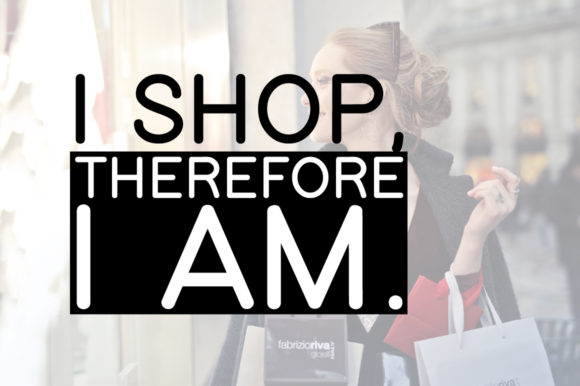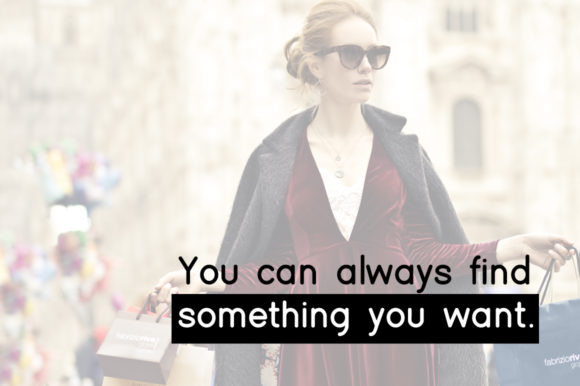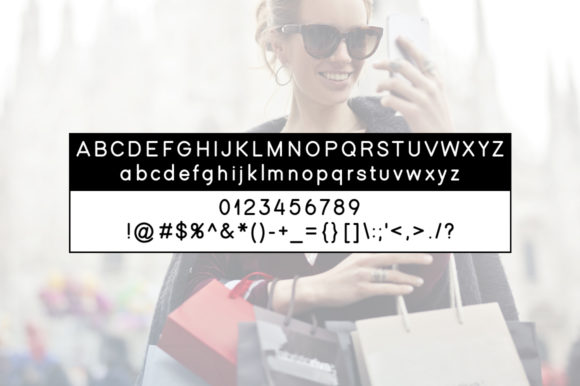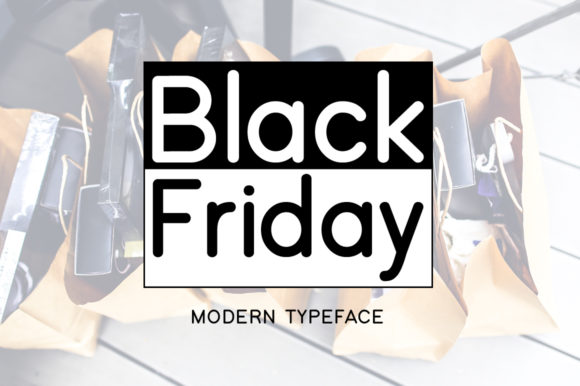
Introducing Black Friday Font: The Modern and Clean Display Font for Bold Designs
Are you tired of using the same old fonts for your design projects? Do you want to add a bold and modern touch to your creations? Look no further than the Black Friday Font, a sleek and contemporary display font that’s perfect for designers and crafters alike. In this article, we’ll take a closer look at the Black Friday Font, its features, and how it can elevate your design projects to the next level.
What is Black Friday Font?
Black Friday Font is a modern and clean display font designed to make a statement. Its bold and sleek lines make it perfect for headlines, titles, and other display text. The font is highly versatile and can be used for a wide range of design projects, from branding and advertising to packaging and web design.
Key Features of Black Friday Font
- Modern and Clean Design: The Black Friday Font boasts a modern and clean design that’s perfect for creating bold and eye-catching text.
- Highly Versatile: The font is highly versatile and can be used for a wide range of design projects, from print to digital.
- Easy to Read: Despite its bold design, the Black Friday Font is easy to read, making it perfect for headlines and titles.
- Customizable: The font comes with a range of customization options, allowing you to tailor it to your specific design needs.
Benefits of Using Black Friday Font
So, why should you choose the Black Friday Font for your design projects? Here are just a few benefits of using this amazing font:
- Adds a Bold Touch: The Black Friday Font adds a bold and modern touch to any design project, making it perfect for designers who want to create eye-catching text.
- Enhances Readability: The font’s clean design and bold lines make it easy to read, even at small sizes.
- Versatile: The Black Friday Font can be used for a wide range of design projects, from print to digital.
- Time-Saving: With the Black Friday Font, you can create professional-looking text in minutes, saving you time and effort.
How to Use Black Friday Font in Your Design Projects
Using the Black Friday Font in your design projects is easy. Here are a few tips to get you started:
- Pair it with Other Fonts: Pair the Black Friday Font with other fonts to create a unique and eye-catching text combination.
- Experiment with Colors: Experiment with different colors to find the perfect combination for your design project.
- Use it for Headlines: Use the Black Friday Font for headlines and titles to add a bold touch to your design.
Who Can Benefit from Black Friday Font?
The Black Friday Font is perfect for a wide range of designers and crafters, including:
- Graphic Designers: Graphic designers can use the Black Friday Font to create bold and eye-catching text for their design projects.
- Web Designers: Web designers can use the font to create bold and modern text for their websites.
- Crafters: Crafters can use the Black Friday Font to create professional-looking text for their craft projects.
- Marketing Professionals: Marketing professionals can use the font to create bold and eye-catching text for their marketing campaigns.
In conclusion, the Black Friday Font is a modern and clean display font that’s perfect for designers and crafters who want to add a bold touch to their design projects. With its highly versatile design, ease of use, and range of customization options, the Black Friday Font is a must-have for any designer or crafter looking to elevate their design projects to the next level.